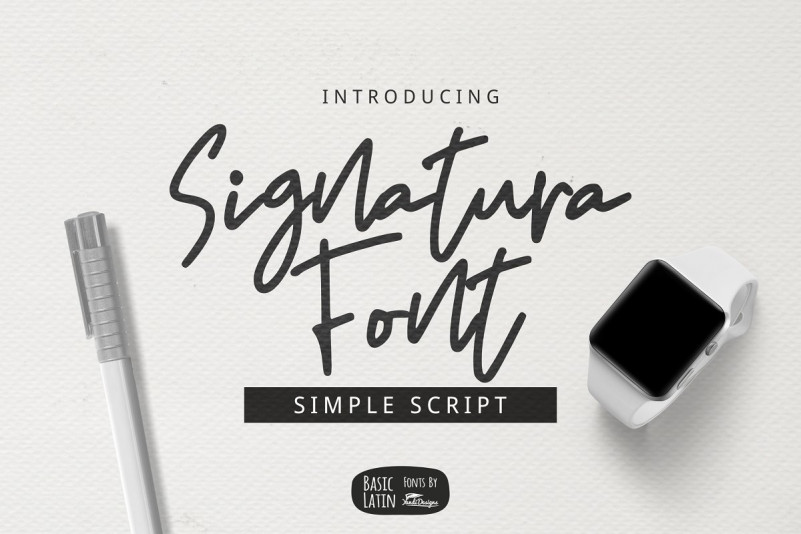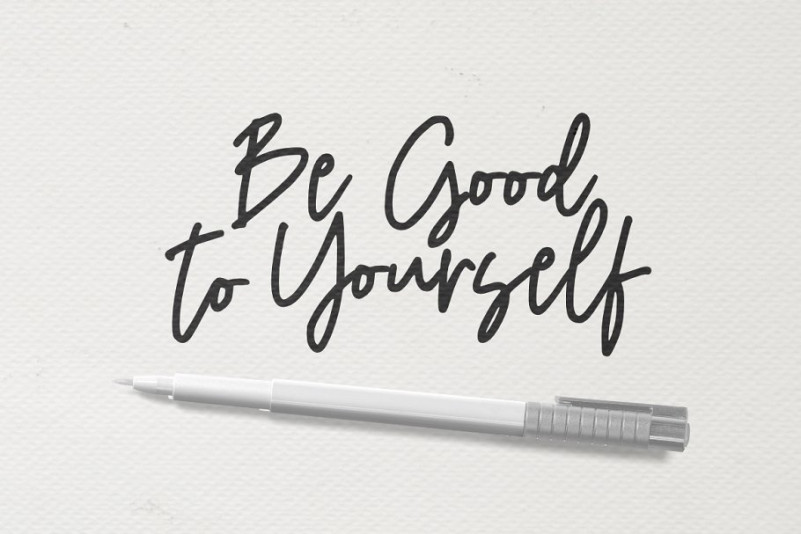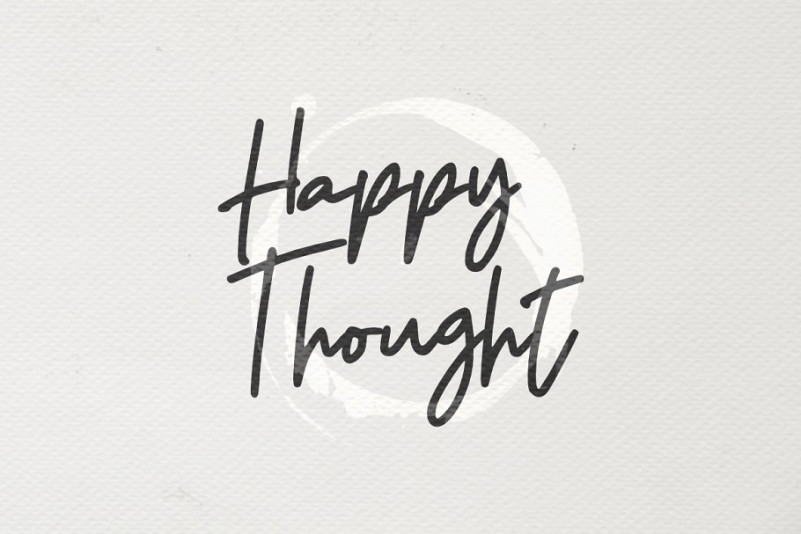
Signatura Font
Signatura font is simple beautiful multipurpose handmade font , suitable for many project children book, quotes, logo , heading , title etc.